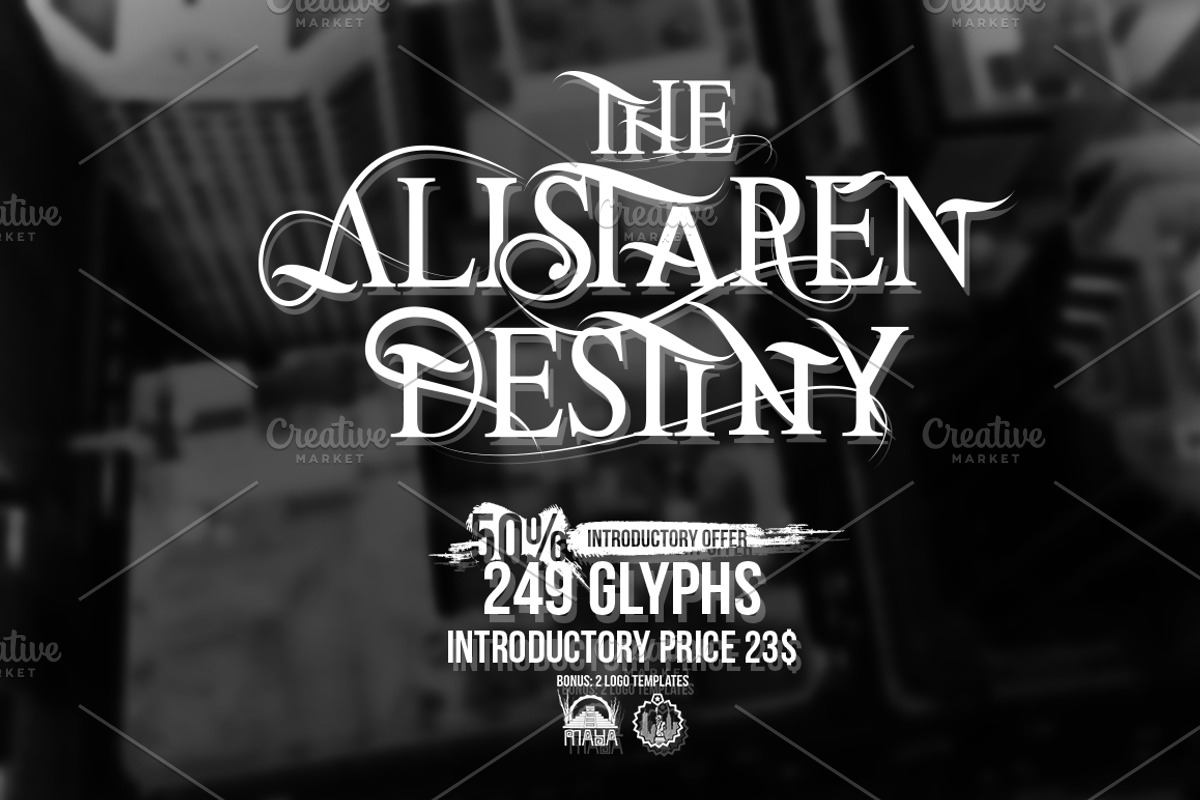
The Alistaren Font Free Download is an elegant and stylish serif typeface with a modern twist. Featuring a unique blend of sharp lines and flowing curves, this font is perfect for branding, logos, high-end marketing materials, and editorial designs. Its sophisticated and clean structure makes it ideal for both display and text purposes, offering flexibility across a wide range of creative projects.
Whether you're working on luxury branding, a trendy magazine layout, or a professional logo design, The Alistaren will bring a polished and modern touch to your typography.